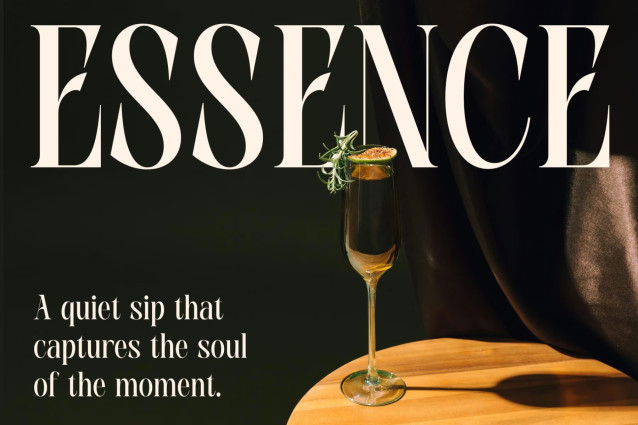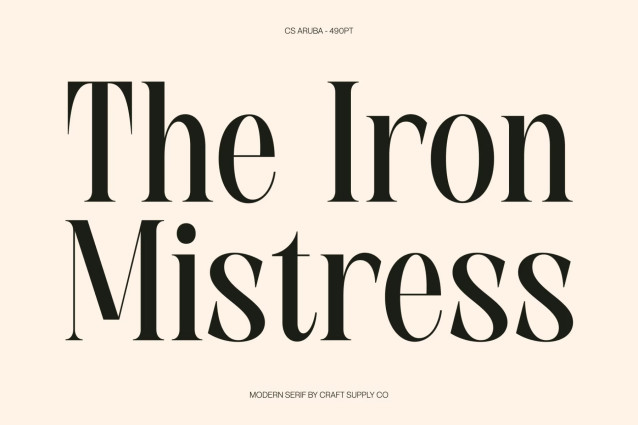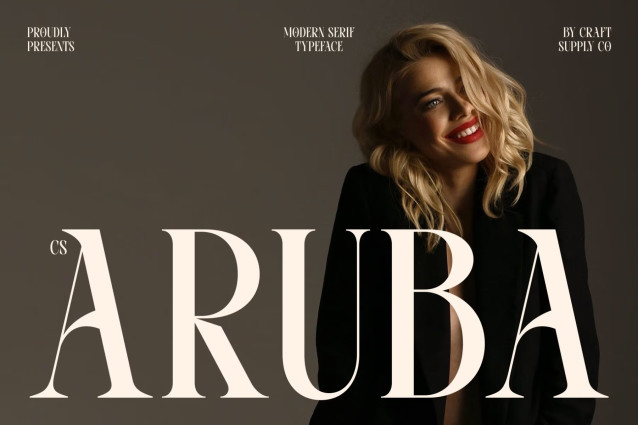
CS Aruba – Modern Serif Font
CS Aruba – Modern Serif Font: Where Bold Contrast Meets Refined Luxury
Bold Presence with Graceful Long Serifs
This is a modern serif font that combines bold, confident letterforms with beautiful stroke contrast and graceful long serifs. Its clean, contemporary structure creates a refined visual identity that feels elegant, luxurious, and timeless. Every character is carefully crafted to balance strength with sophistication, resulting in typography that is both expressive and highly polished.
Contemporary Design with Timeless Appeal
This font offers a sophisticated interpretation of luxury typography. The striking contrast between thick and thin strokes adds visual richness, while its elongated serifs introduce a sense of grace and refinement. This harmonious combination creates a font that feels premium, stylish, and effortlessly distinctive.